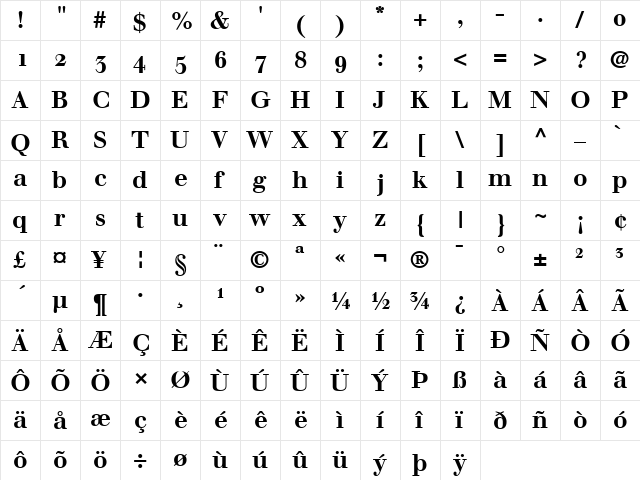
Walbaum Bold
Design Context for Walbaum Typeface
Walbaum takes a measured approach to typography — its balanced proportions and neutral character make it a reliable workhorse for both digital and print work. The heavy weight commands attention and anchors typographic hierarchies.
Pro Tip: Pair Walbaum with a font of contrasting weight or personality to build a more expressive typographic hierarchy.